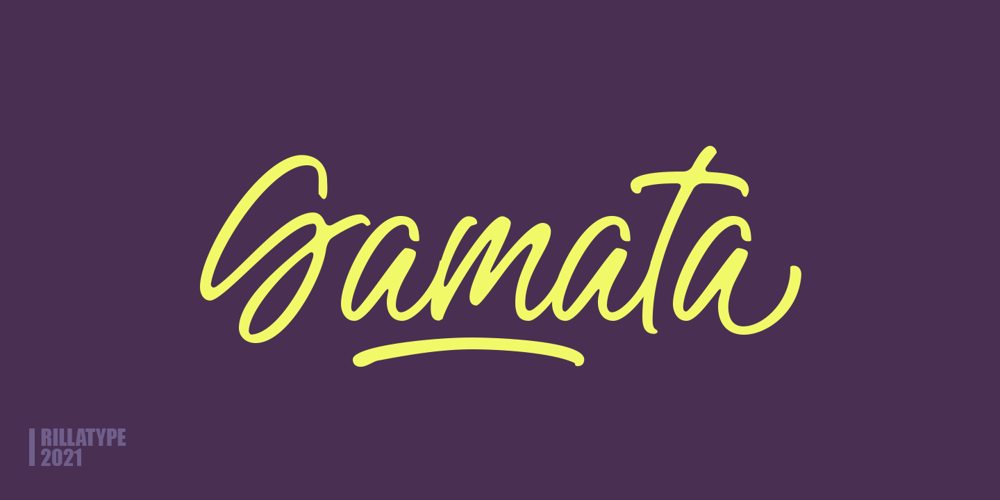
Gamata Font Family was designed by Gustian Agung Asprilla and published by Rillatype. Gamata contains 1 styles and family package options. Introducing, Gamata Brush Script. Gamata is a brush script with natural feel that make this font is perfect for branding, packaging, book, logol labels, etc.Features : uppercase & lowercase numbers and punctuation multilingual alternates / swashes and ligatures PUA encoded